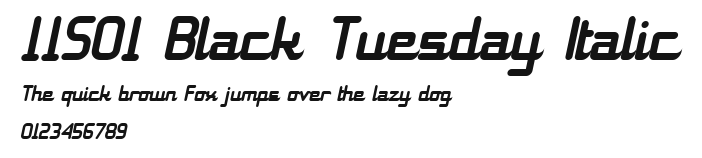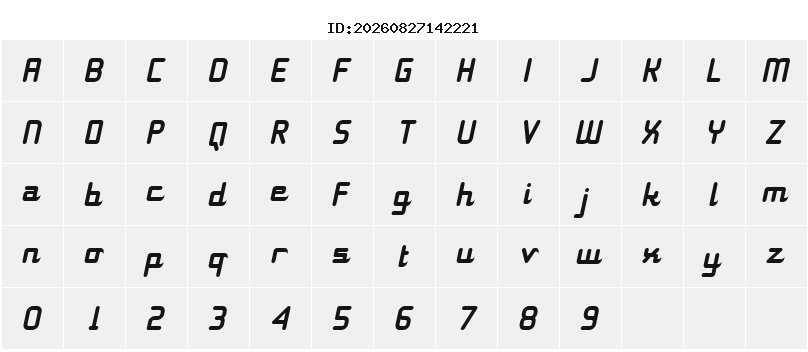
About 11S01 Black Tuesday Italic.ttf
11S01 Black Tuesday Italic.ttf is a modern, elegant sans-serif font designed for ultimate readability and visual harmony. Perfect for branding, headlines, web design, and print materials.